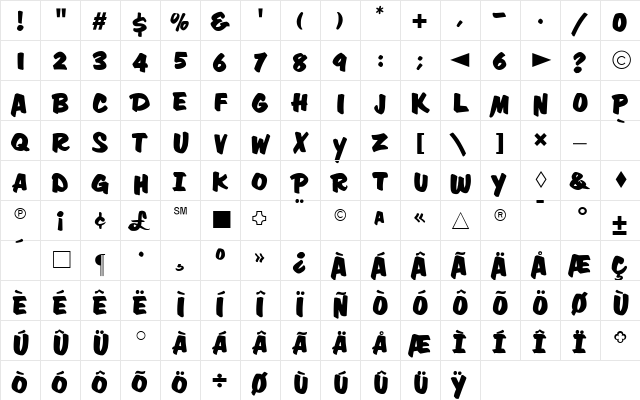
CgDavisonZip Bold
Design Context for CgDavisonZip Typeface
CgDavisonZip is a composed and adaptable typeface that performs quietly and consistently across a wide range of design contexts. The heavy weight commands attention and anchors typographic hierarchies.